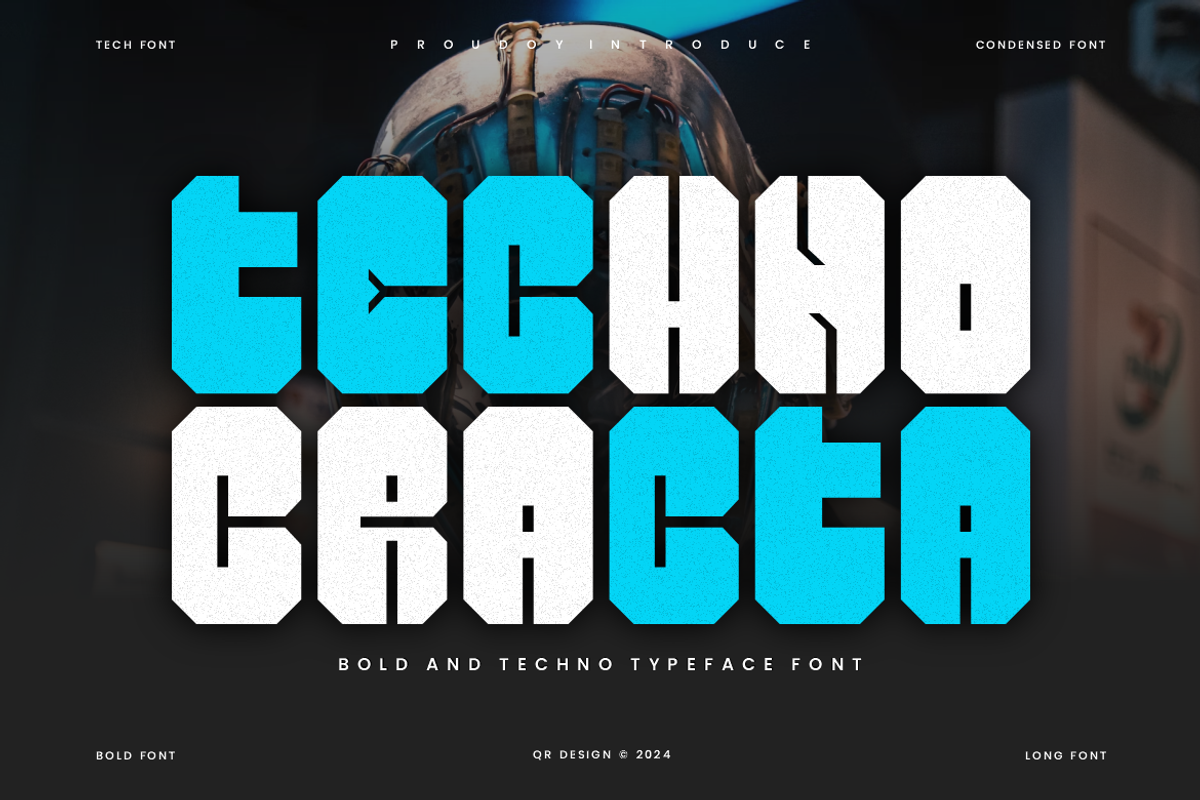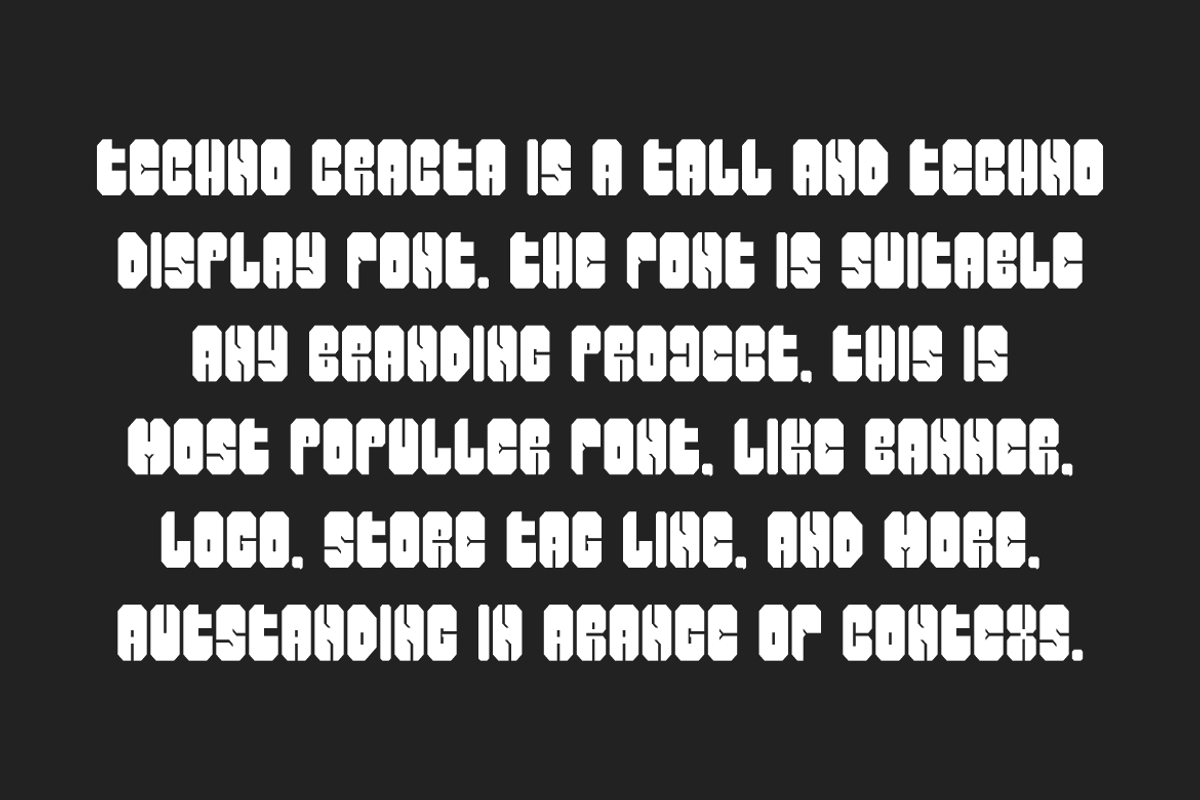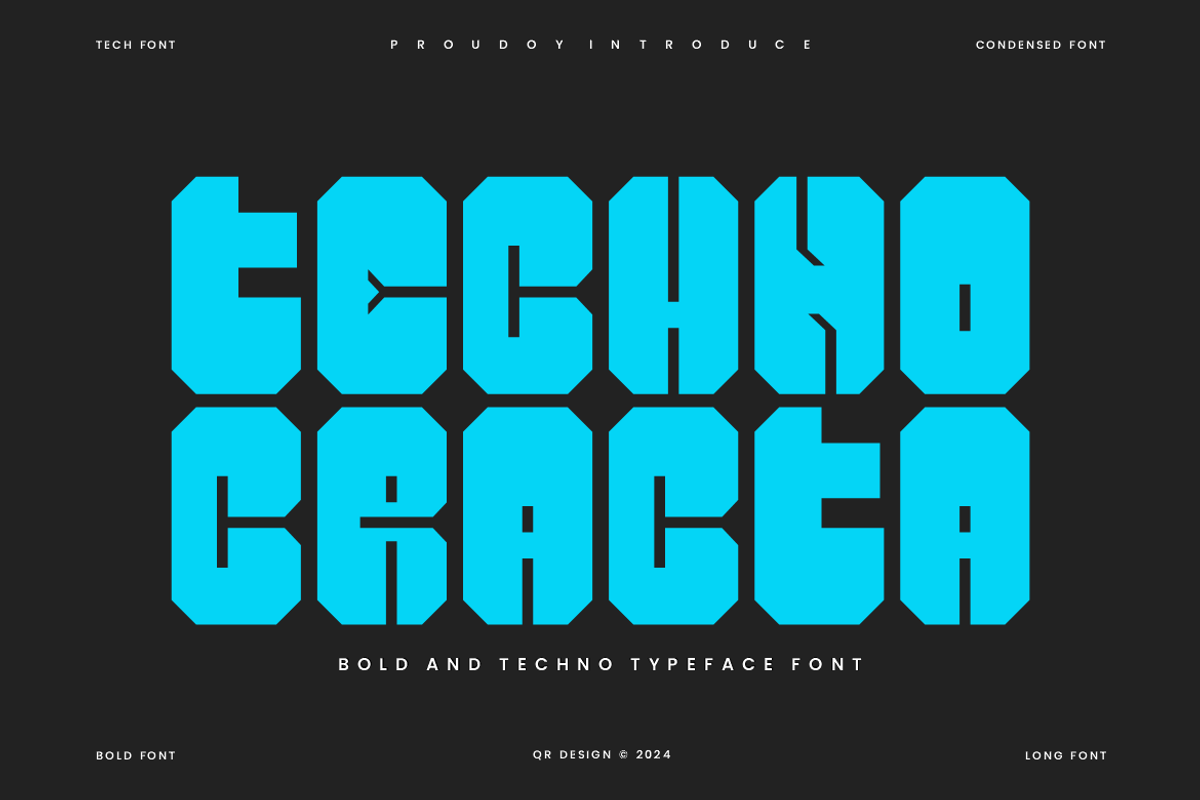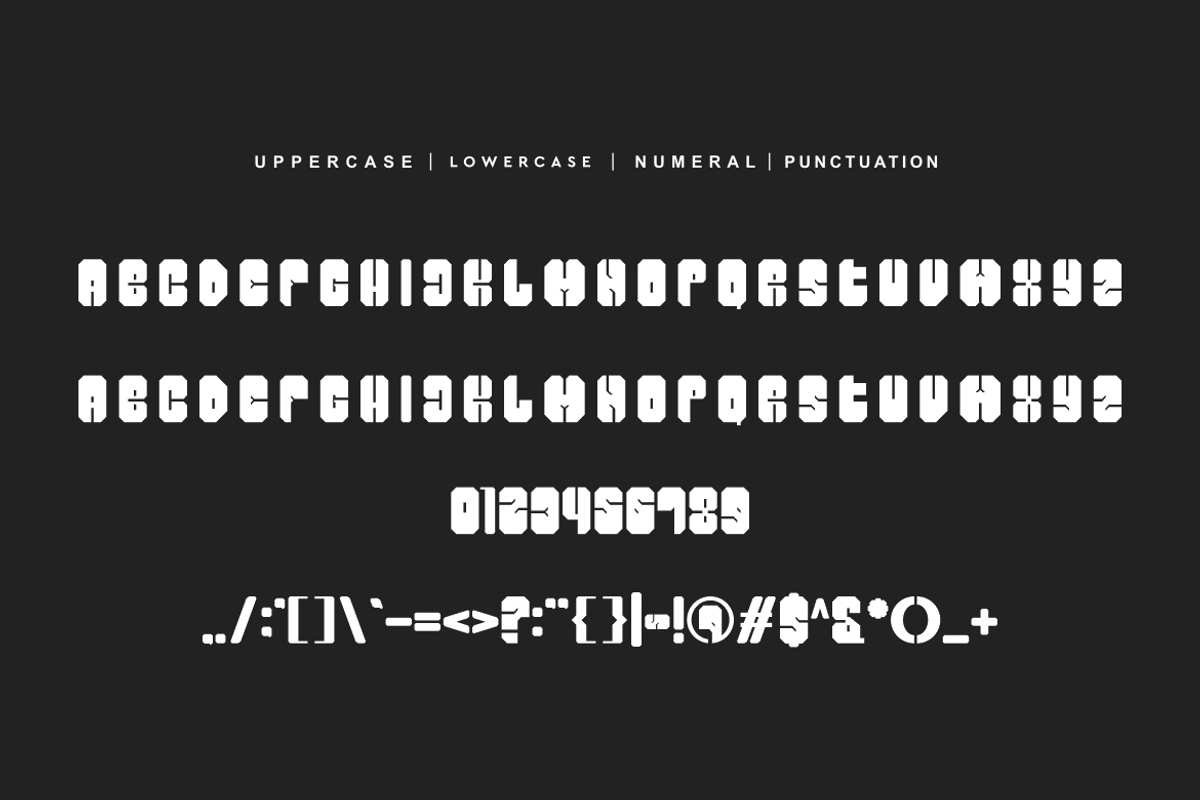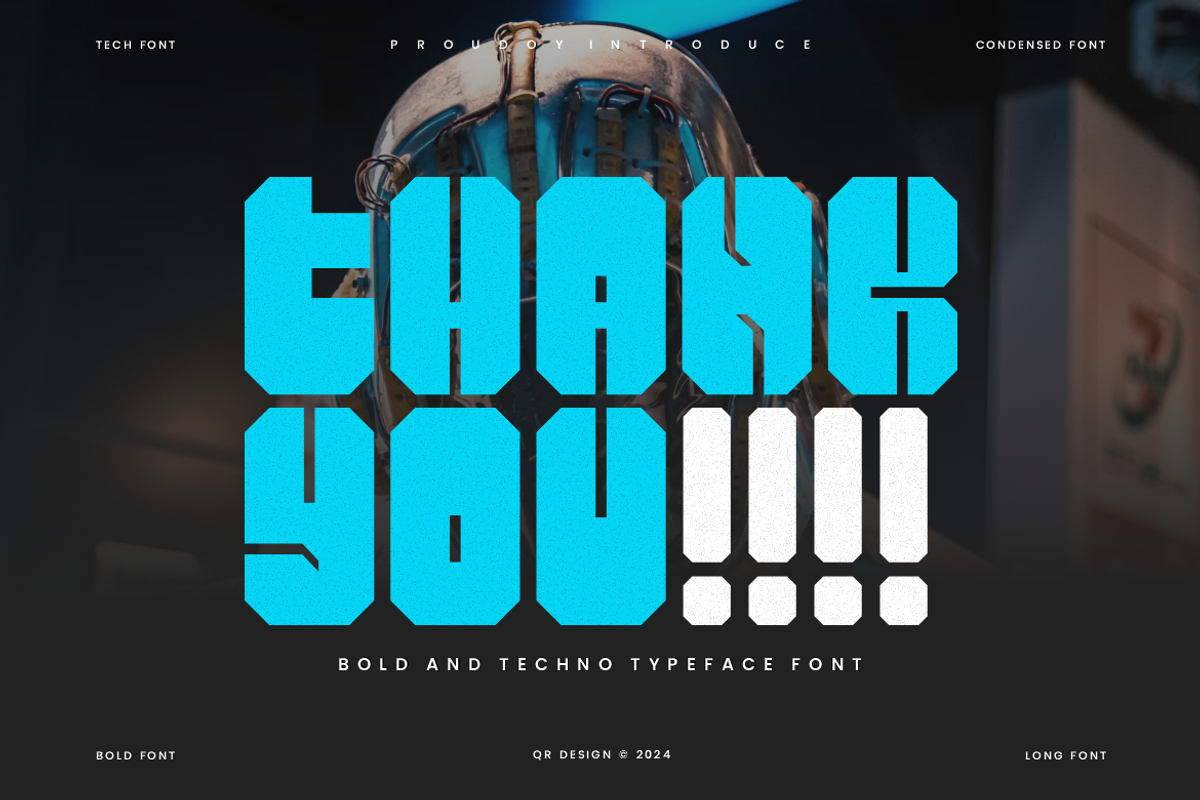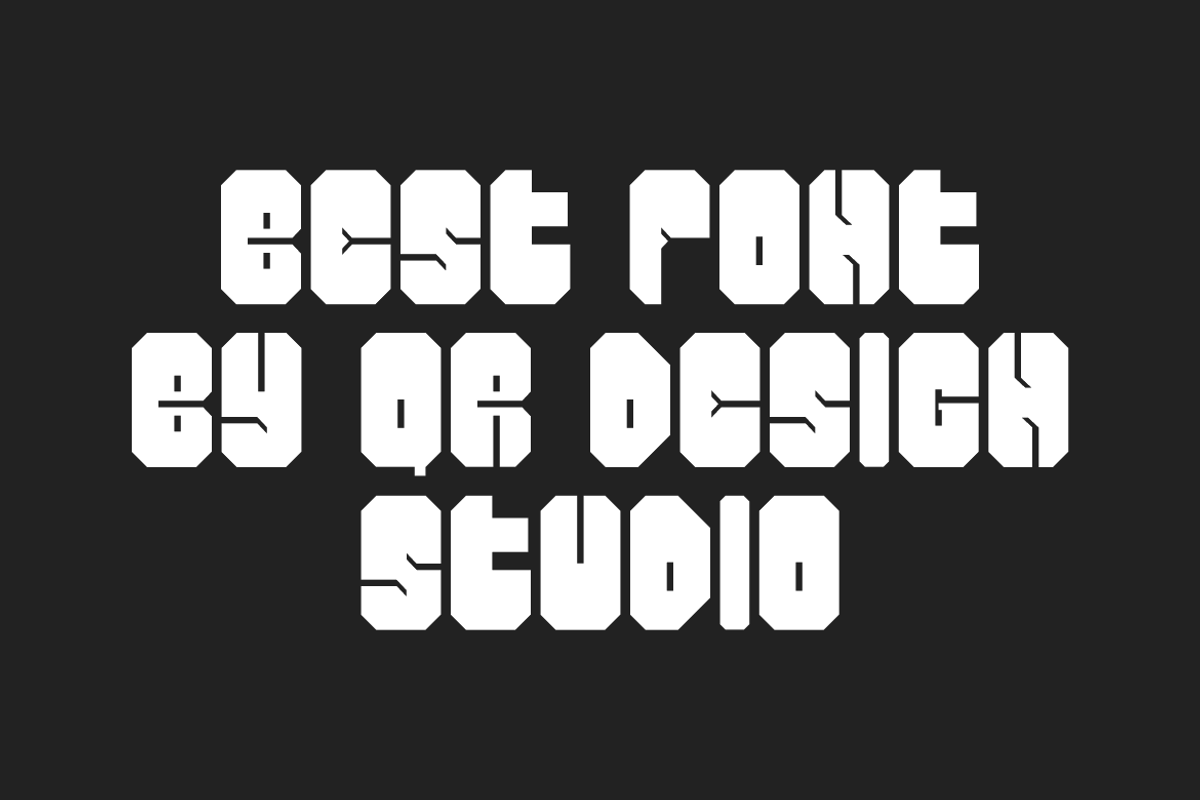
Techno Cracta - Block & Futuristic F
Techno Cracta - Block & Futuristic Font is a bold and authentic display font. The font is suitable for any branding project like poster, logo, sport, and many more. Outstanding in a wide range of contexts.